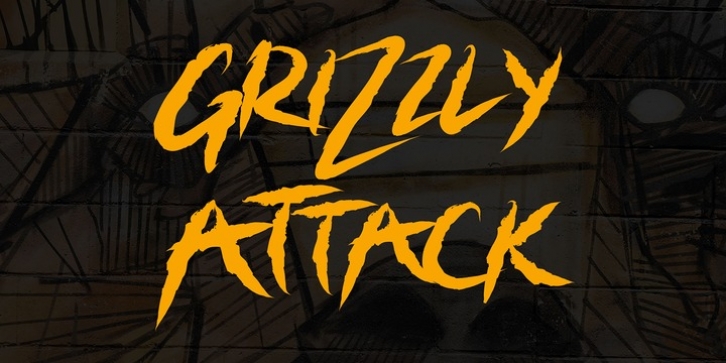
Publisher: Rometheme
Grizzly Attack is a brush and handdrawn font, this font looks urban, cool, readable, stylish, catchy and easy to use.
Grizzly Font is the best choice for your professional design projects, including : logo, poster design, t-shirt, headline, flyer, cd cover album, quotes, business card, branding, magazines, social media, advertisements, product designs, or something that need urban or cool looks.